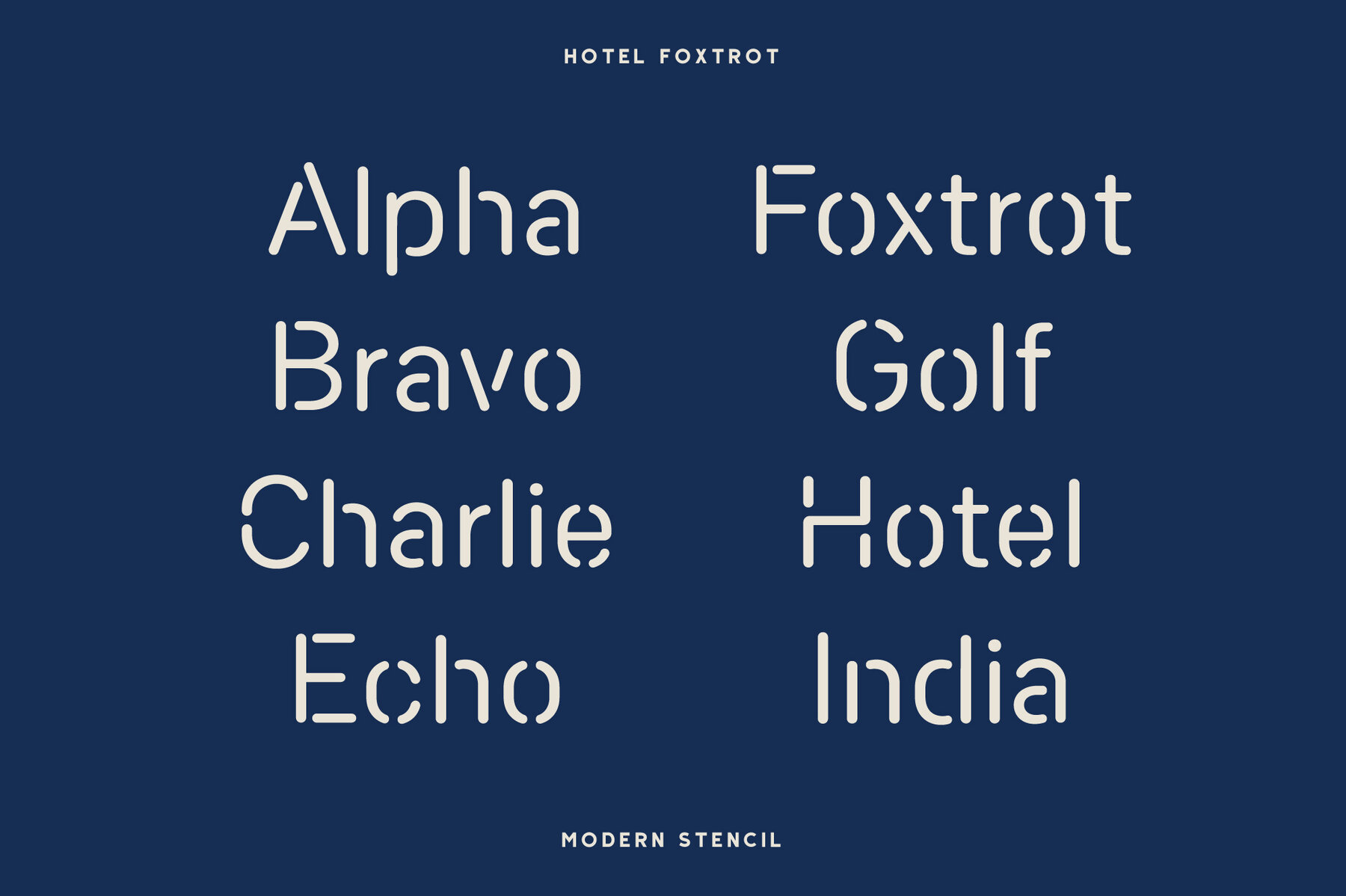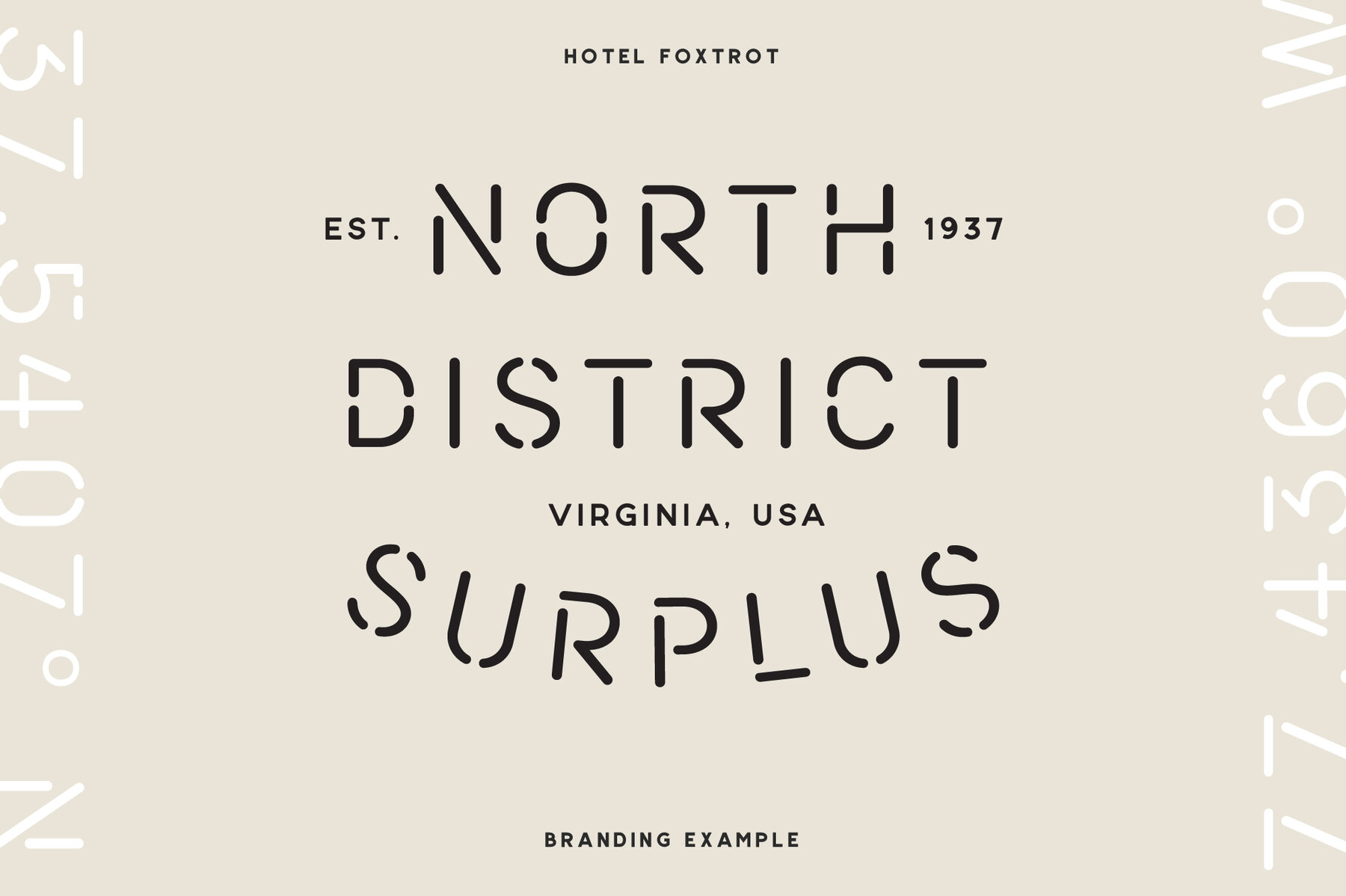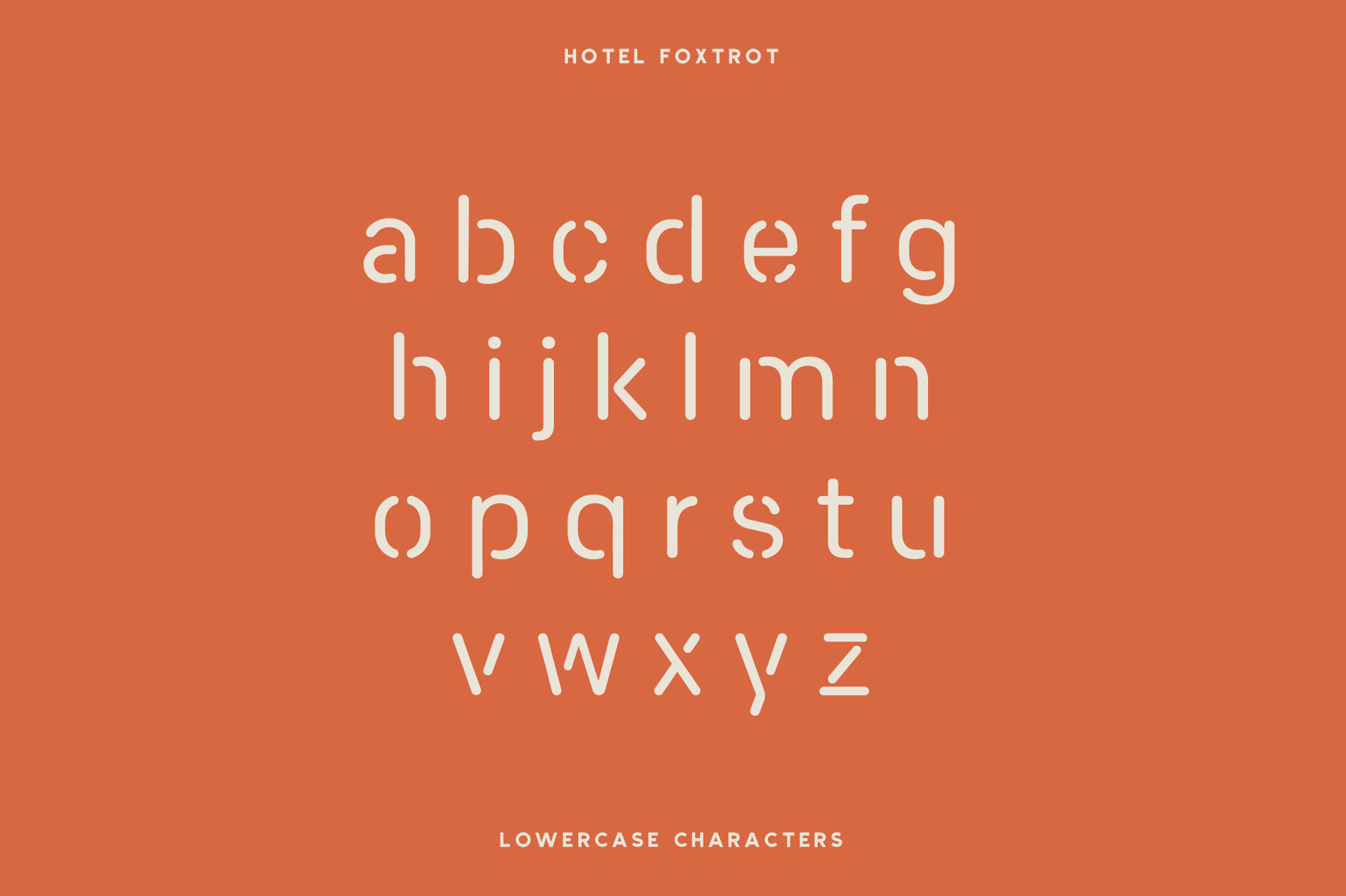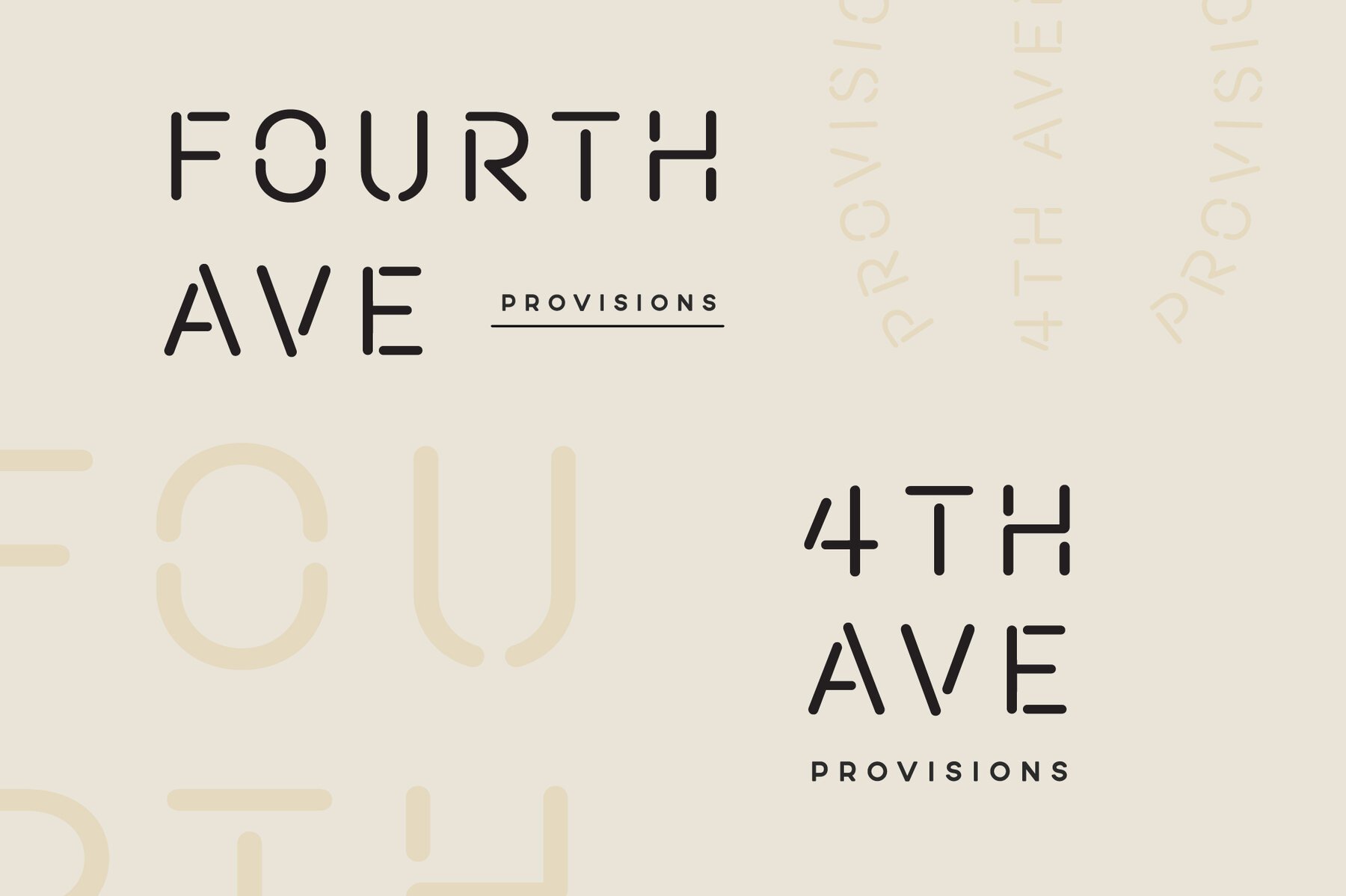
Hotel Foxtrot Font
Hotel Foxtrot
“Whiskey Tango . . . Foxtrot!?!” “Negative. Hotel Foxtrot, over” “Copy that, over '' This modern stencil font is on a mission to engage your message and push it to the front line with its rounded edges and unique cutouts.
Hotel Foxtrot’s versatility makes it fun to work with and is perfect for branding, packaging, heading fonts, and posters, but really works well for all purposes. So, snag Hotel Foxtrot and get creative!